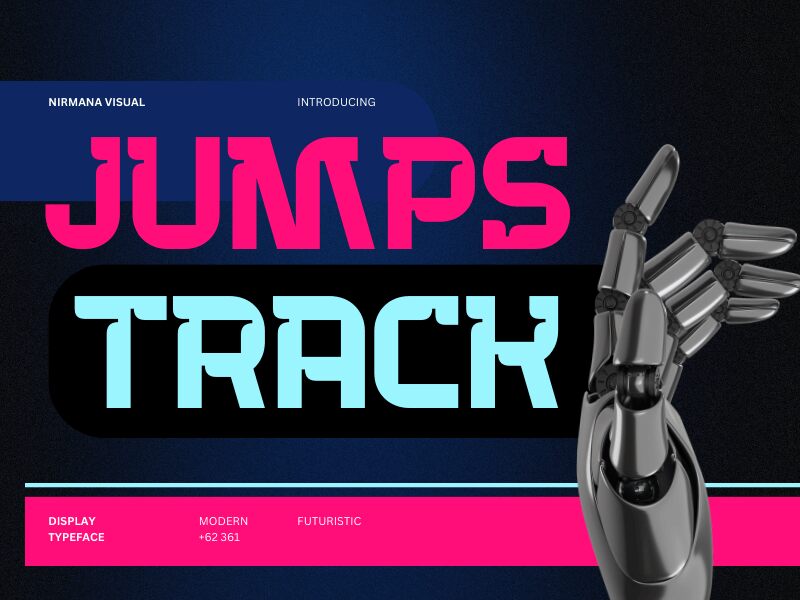
Jumps Track by Nirmana Visual is a bold display font that exudes a dynamic, techno vibe. Its striking design features playful curves and sharp angles, creating an energetic visual rhythm that immediately draws attention. The font’s pronounced weight lends it an assertive presence, making it ideal for captivating headlines and impactful branding.
With its unique aesthetic, Jumps Track excels in modern contexts where creativity reigns-think tech startups, futuristic events, or vibrant advertising campaigns. Its distinctive character sets it apart in the crowded landscape of contemporary typography, allowing for compelling applications in posters, digital interfaces, and fashion graphics. This font invites excitement and innovation into any design project, ensuring messages resonate with clarity and flair.